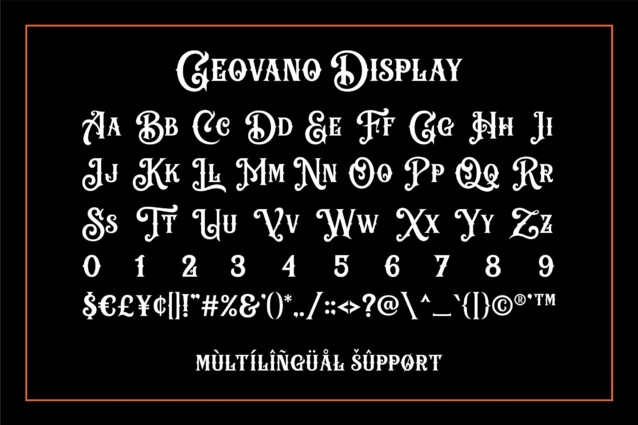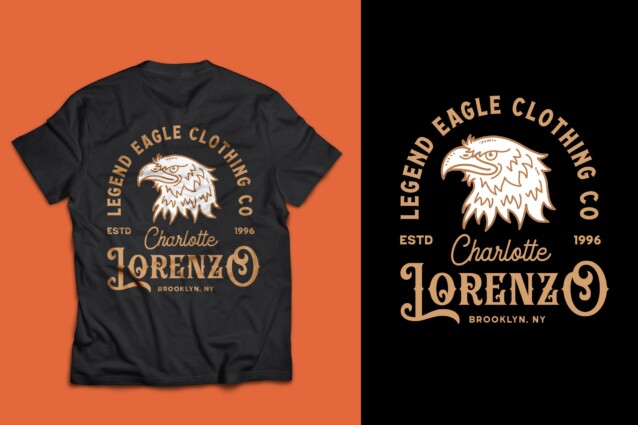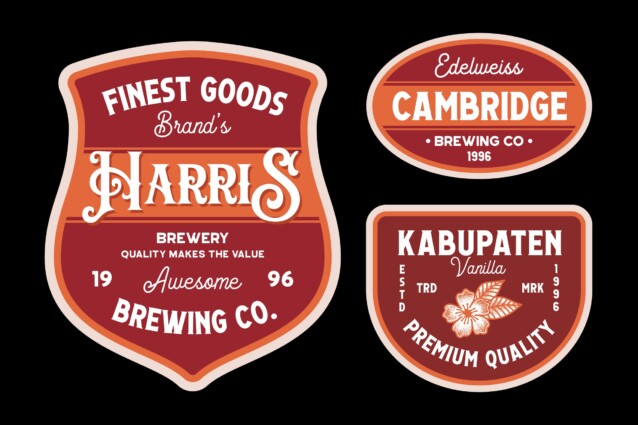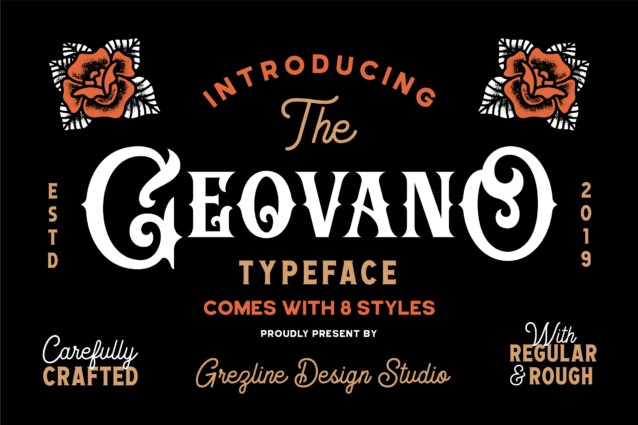
Geovano Display Font – Retro or vintage style display fonts for your new projects. It is heavily inspired by all kind of vintage and oldschool design. Geovano is a font that you can use to make a vintage logo for branding, typography design, magazine or book cover, website header, product packaging, t-shirt design, label poster and many more.